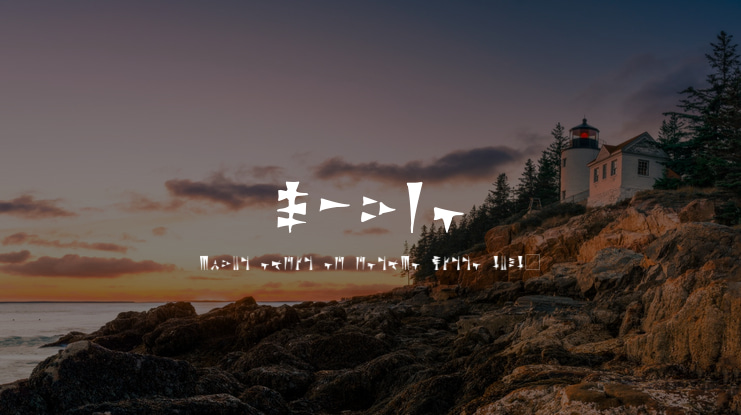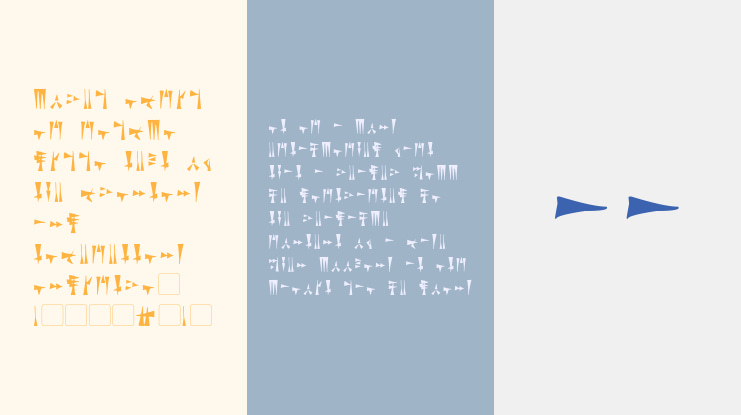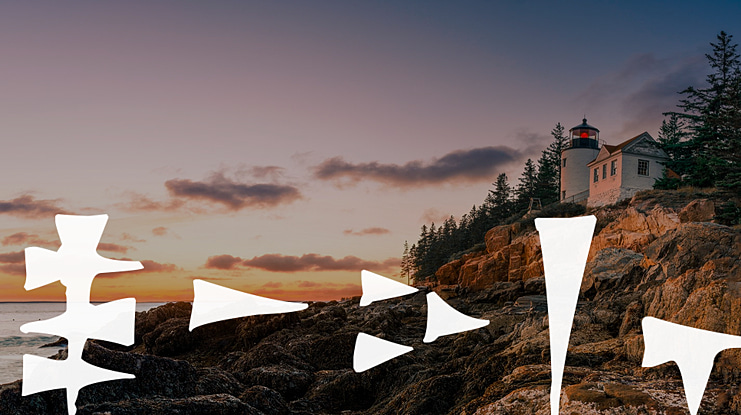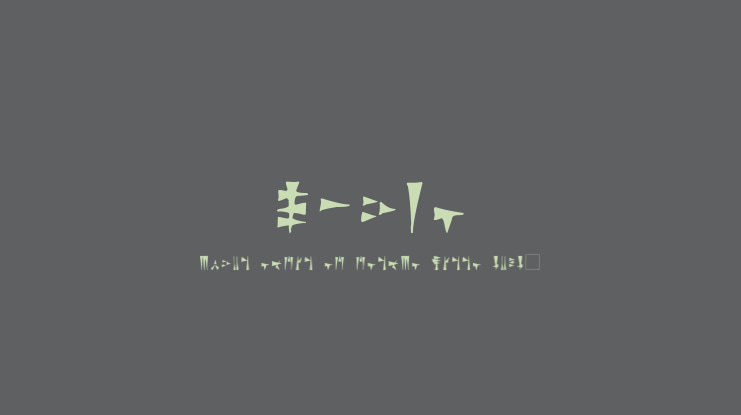
Kargi Font
Neale Davidson
Kargi (New)
Kargi is a Persian Cuneiform-stylized runic typeface based on the goblin language described in Kenzer and Co.'s Kingdoms of Kalamar. Includes all canon characters. Includes bold, italic, and bold-italic weights.